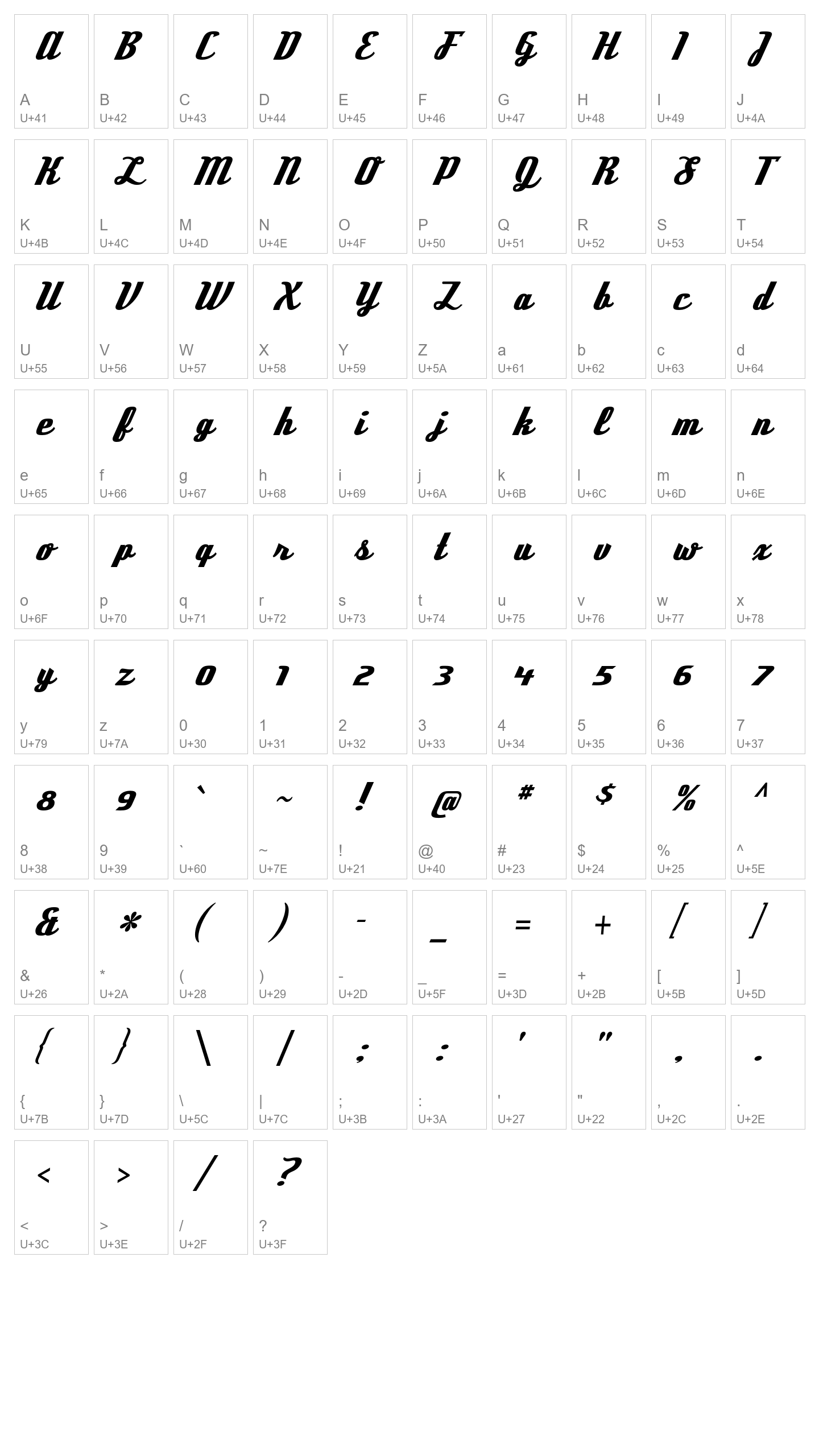
Deftone Stylus
Auto garage signs from the 1940s and 1950s inspired the design of Deftone Stylus, an industrial script typeface. A cool, precise voice will be conveyed through its retro-technological contours. Most Latin-based European writing systems are supported, including the following languages. Afaan Oromo, Afar, Afrikaans, Albanian, Alsatian, Aromanian, Aymara, Bashkir (Latin), Basque, Belarusian (Latin), Bemba, Bikol, Bosnian, Breton, Cape Verdean, Creole, Catalan, Cebuano, Chamorro, Chavacano, Chichewa, Crimean Tatar (Latin), Croatian, Czech, Danish, Dawan, Dholuo, Dutch, English, Estonian, Faroese, Fijian, Filipino, Finnish, French, Frisian, Friulian, Gagauz (Latin), Galician, Ganda, Genoese, German, Greenlandic, Guadeloupean Creole, Haitian Creole, Hawaiian, Hiligaynon, Hungarian, Icelandic, Ilocano, Indonesian, Irish, Italian, Jamaican, Kaqchikel, Karakalpak (Latin), Kashubian, Kikongo, Kinyarwanda, Kirundi, Kurdish (Latin), Latvian, Lithuanian, Lombard, Low Saxon, Luxembourgish, Maasai, Makhuwa, Malay, Maltese, Māori, Moldovan, Montenegrin, Ndebele, Neapolitan, Norwegian, Novial, Occitan, Ossetian (Latin), Papiamento, Piedmontese, Polish, Portuguese, Quechua, Rarotongan, Romanian, Romansh, Sami, Sango, Saramaccan, Sardinian, Scottish Gaelic, Serbian (Latin), Shona, Sicilian, Silesian, Slovak, Slovenian, Somali, Sorbian, Sotho, Spanish, Swahili, Swazi, Swedish, Tagalog, Tahitian, Tetum, Tongan, Tshiluba, Tsonga, Tswana, Tumbuka, Turkish, Turkmen (Latin), Tuvaluan, Uzbek (Latin), Venetian, Vepsian, Võro, Walloon, Waray-Waray, Wayuu, Welsh, Wolof, Xhosa, Yapese, Zapotec Zulu and Zuni.